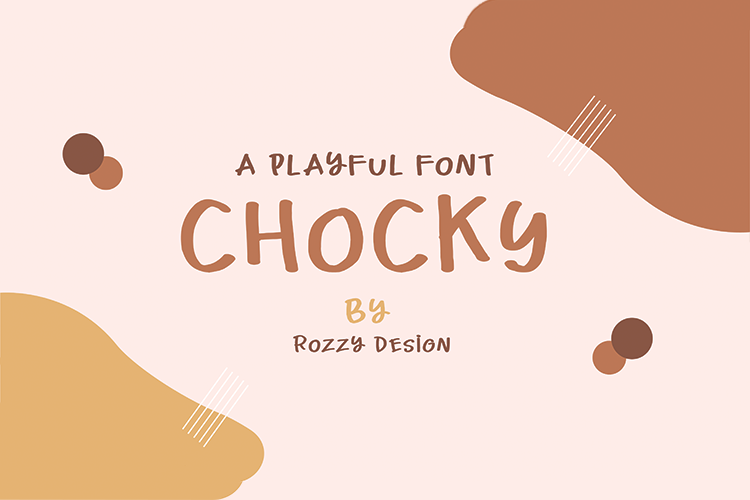
Chocky A playful Font
Introducing Chocky  | a playful Font. It comes with a playful Font which is perfect to make any design.
This font is perfect for branding, magazines, quotes, wedding, invites, business cards, posters, and more.
Chocky  playful Font Type Features:
• Numerals & Punctuations
• Suitable for T-Shirt Logotypes, Signs, Headlines,  Posters, Letterhead and many more.